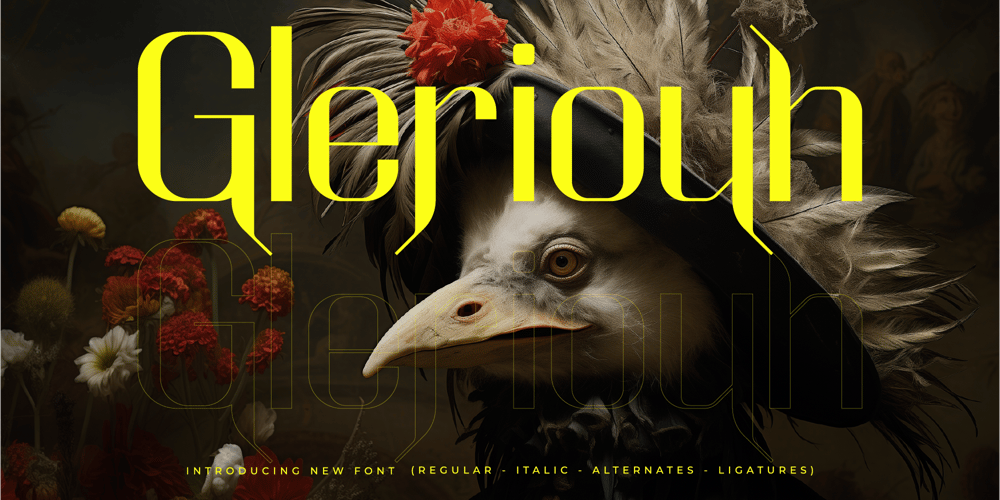
Gleriouh
Gleriouh font
Gleriouh Font Family was designed by Heru Utama Putra and published by Letterena Studios. Gleriouh contains 2 styles and family package options. Proudly present Gleriouh Typeface , created by Storytype,A serif modern and classic typeface that has its own unique style & modern look.This typeface is perfect for an elegant & luxury logo, book or movie title design, fashion brand, magazine, clothes, lettering, quotes, and so much more.This font is PUA encoded which means you can access all of the amazing glyphs and ligatures with ease!